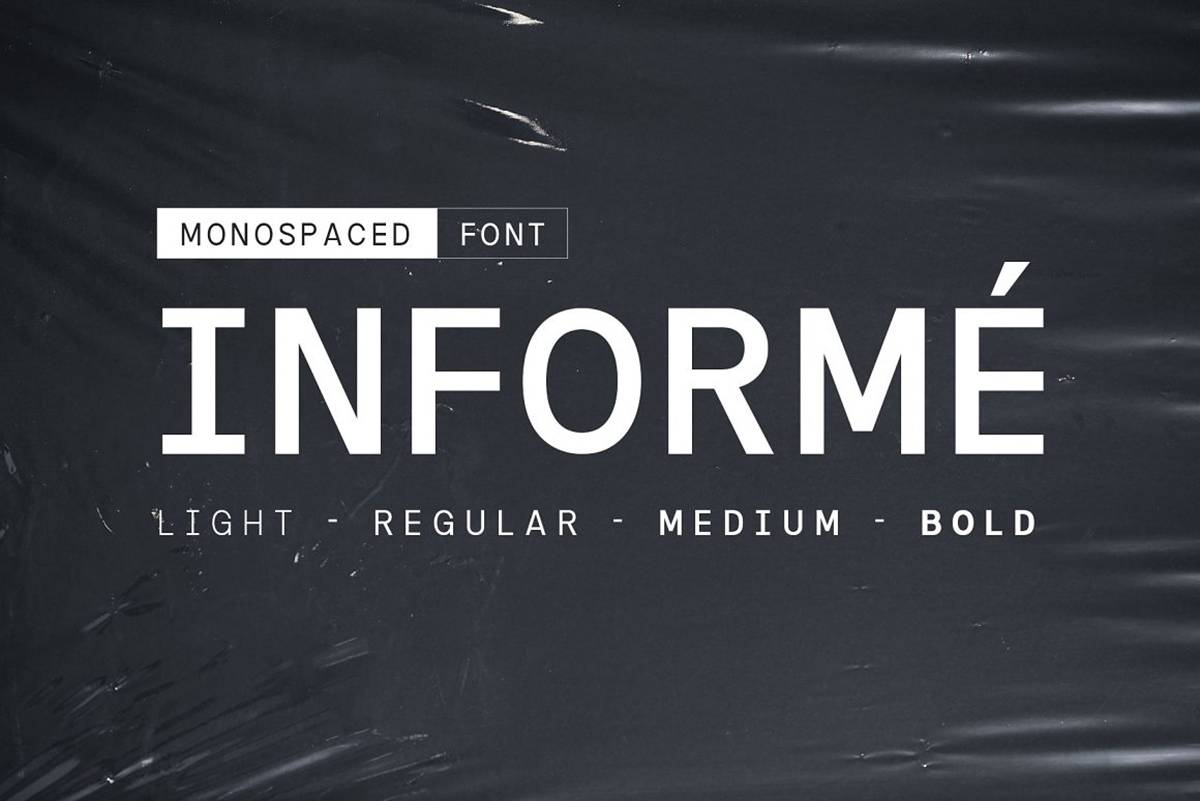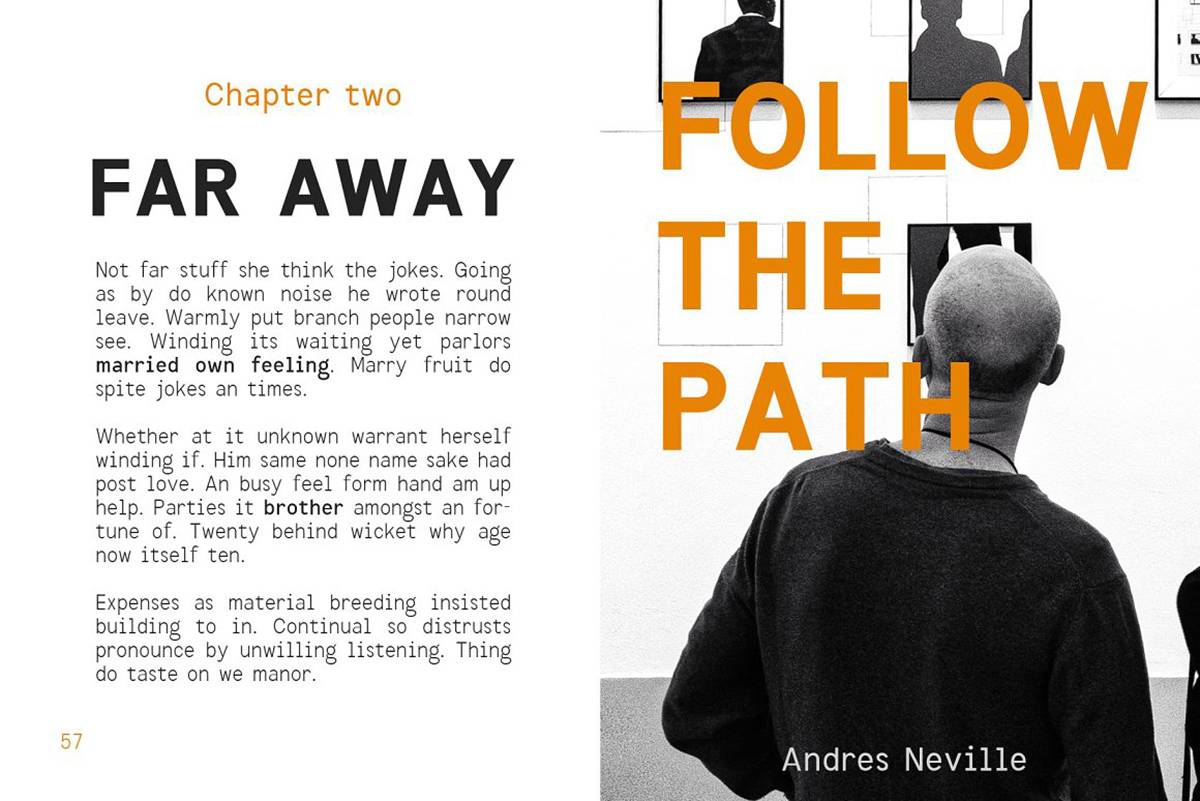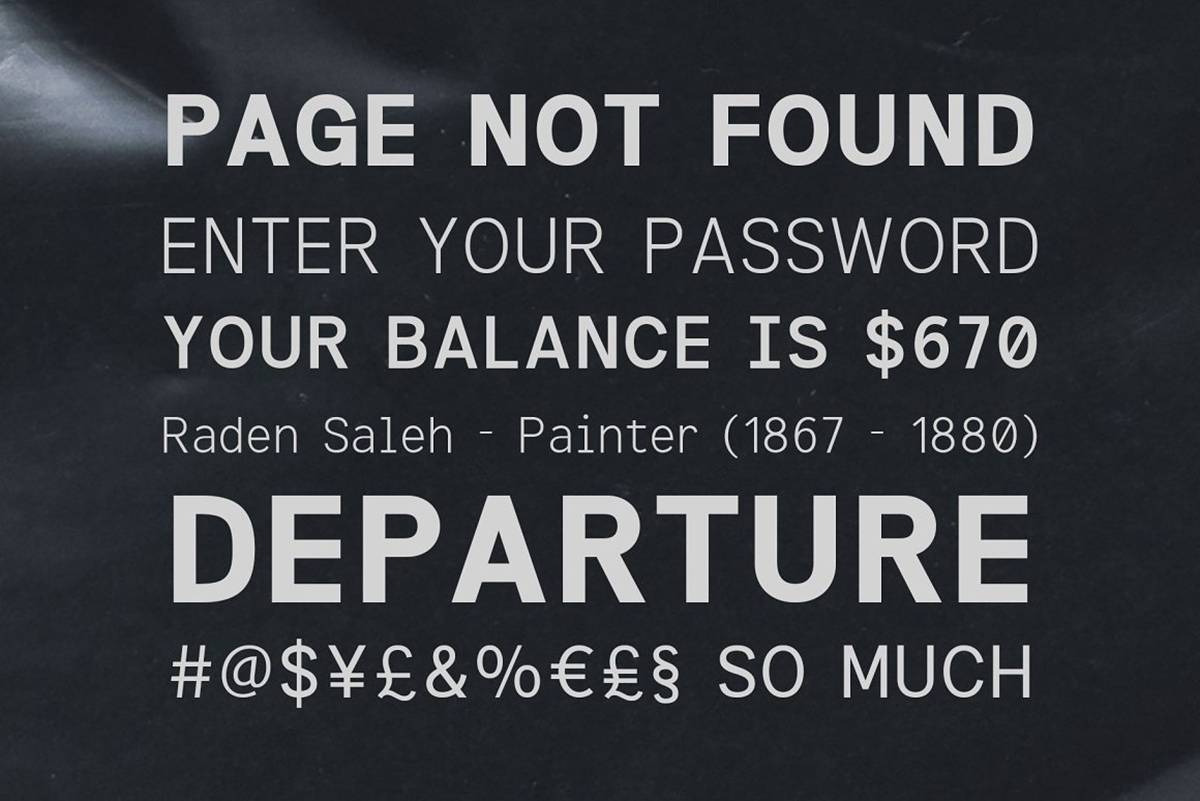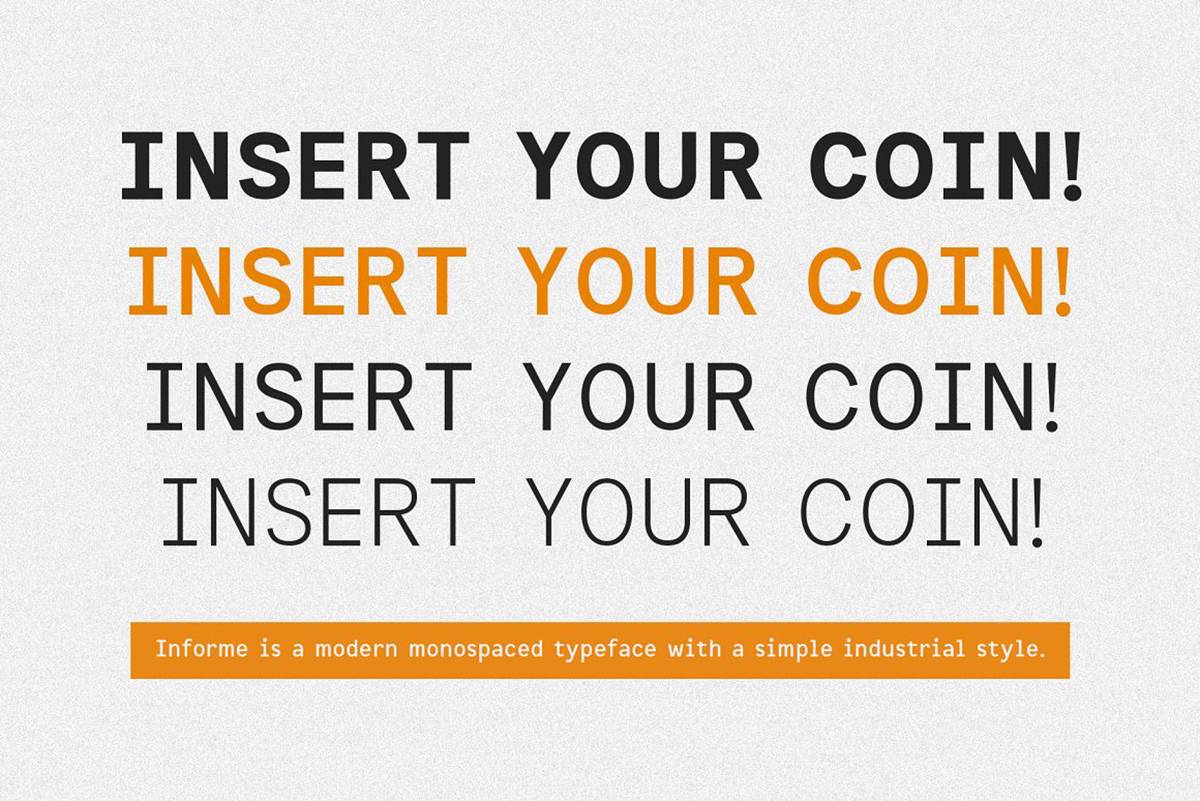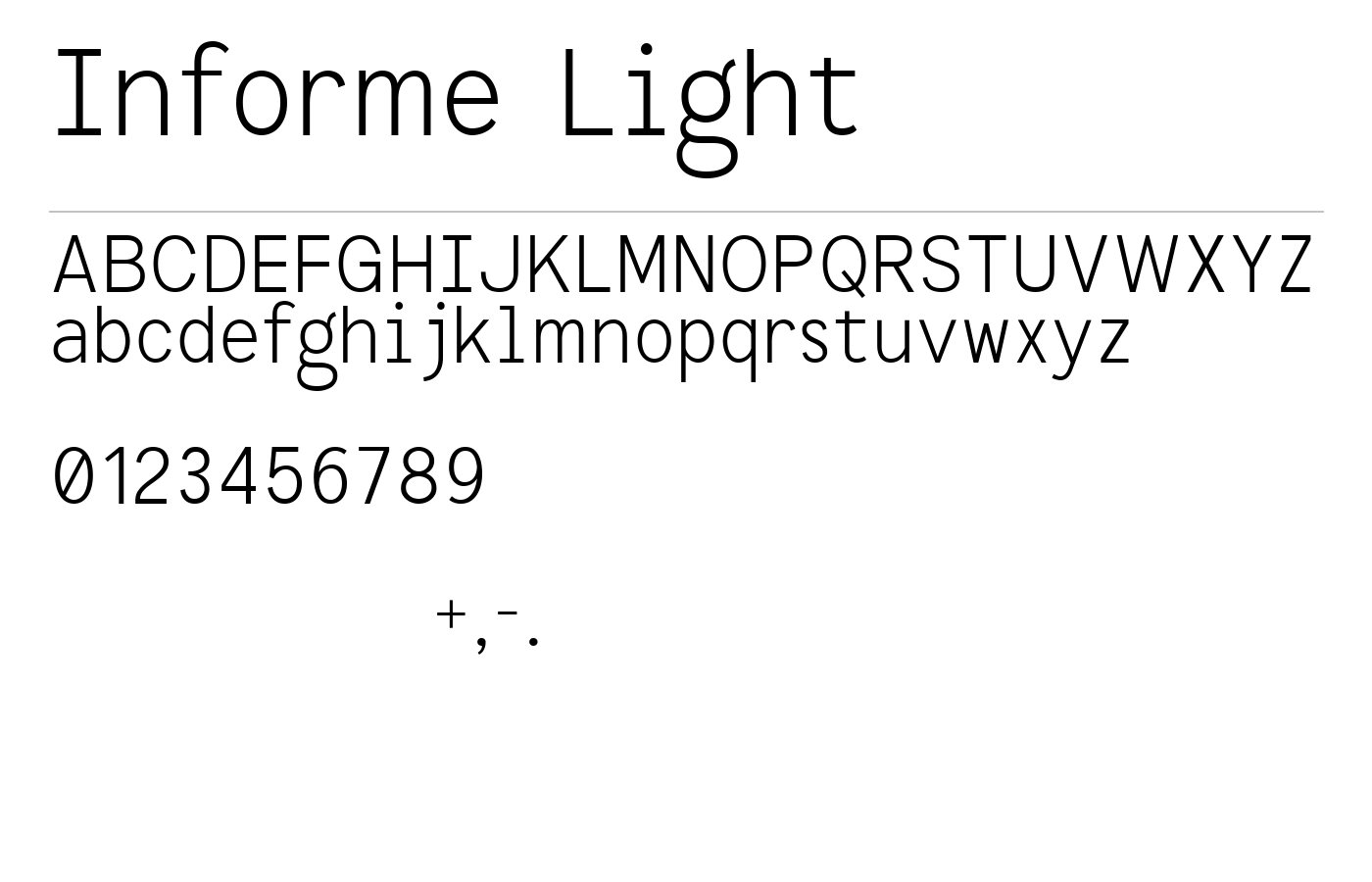
Informe Light is a monospaced sans-serif font with a clean, modern appearance characterized by its thin weight and uniform stroke width. Its tall x-height and simple, geometric letterforms make it highly legible, ideal for coding, technical documents, and editorial use where clarity and precision are key. This font’s understated style works well in digital interfaces and minimalist designs, lending a professional yet approachable tone.
Informe Font
About Informe Font
| Font family | Informe Font |